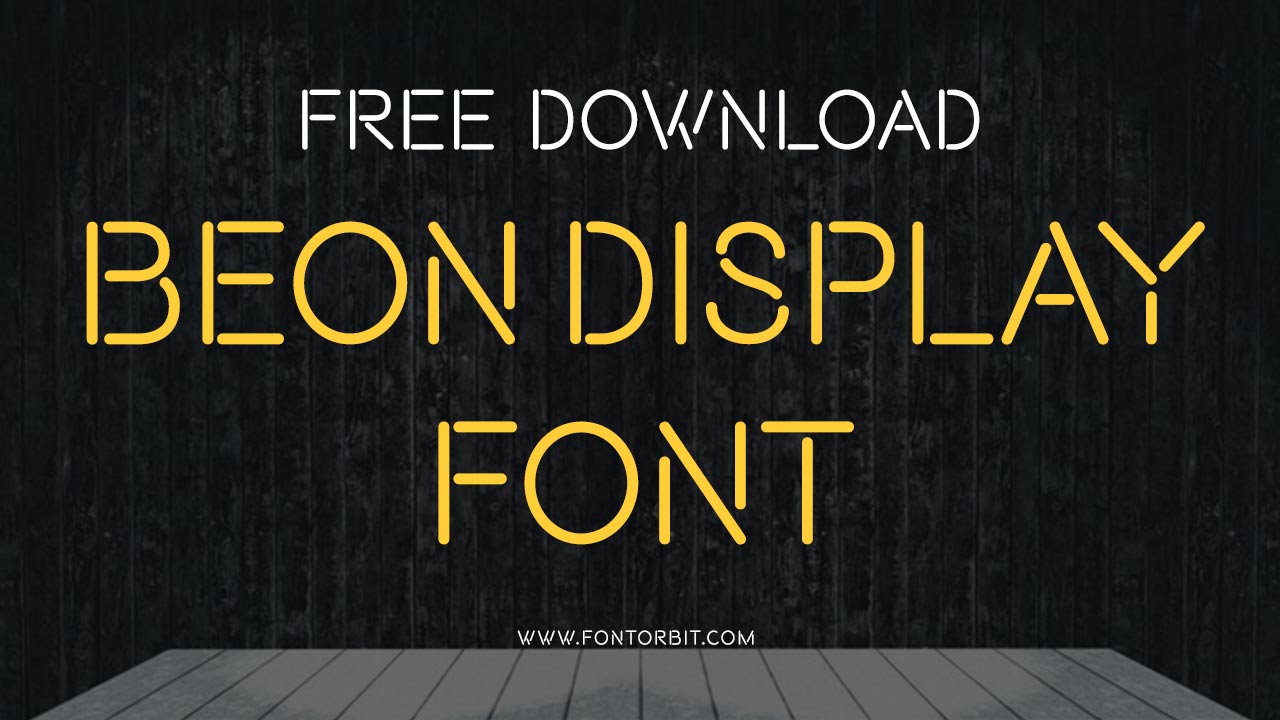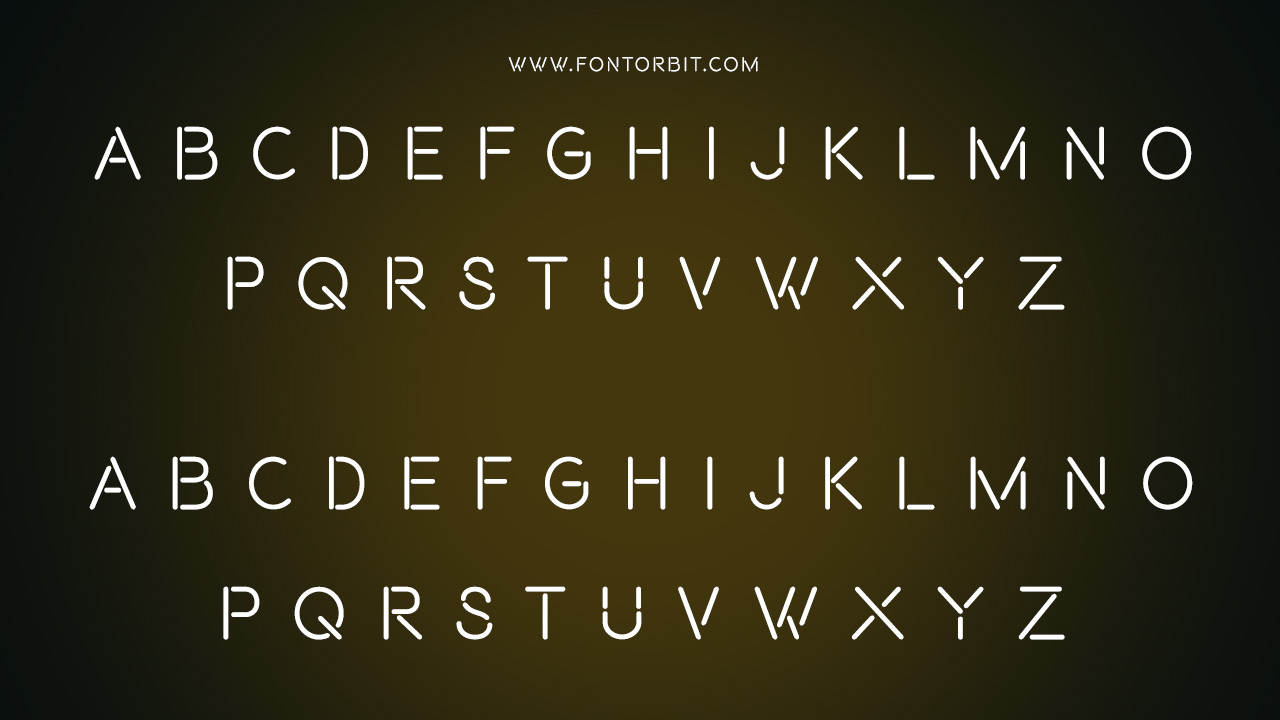
Beon is a unique display font with a futuristic style designed by Bastien Sozoo. Originally published in 2013, it belongs to the display font family. Its sharp and edgy geometric design makes it perfect for technology, science fiction, and modern-themed projects. Beon’s dynamic and angular letterforms offer a bold and eye-catching appeal.
Beon’s font family is known for its highly stylized and contemporary aesthetic. Although it comes in a single style, it can still be versatile in different design contexts.
Beon Regular
Notable Uses Of Beon
Beon is frequently used in tech-based projects, science fiction designs, and futuristic branding campaigns. Its striking, modern look makes it ideal for:
- Technology brands and logos
- Sci-fi movie posters and video game covers
- Futuristic-themed advertising and packaging designs
- Social media graphics, web design, and digital banners
- Urban, street-style fashion branding
Given its bold, display nature, Beon is best suited for large-scale designs like headings, posters, logos, and advertisements. It’s less ideal for body text due to its edgy and distinctive structure. This font can make a striking impact on the following:
- Event posters
- Video game titles and in-game UI
- Music album covers, particularly for electronic or techno genres
- Movie titles and promotional graphics for sci-fi films
- Web headers and online graphics for tech-related businesses
If you’re looking for alternatives that match the futuristic, techy feel of Beon, here are some free font options that can provide a similar vibe:
These fonts share Beon’s bold, geometric, and futuristic style, making them great substitutes for tech-focused designs.
Beon is a bold, geometric display font that excels in futuristic and tech-related designs. Its sharp lines and unique letterforms make it stand out in any digital or print project, especially for titles, logos, and posters. If you’re looking for a modern, edgy font for your next project, Beon is an excellent choice.
2.What Type Of Font Is Beon?
Beon is a display font with a futuristic, geometric style.
3.When Was Beon Released?
Beon was first published in 2013.
4.What Type Of Projects Is Beon Suitable For?
Beon works best in futuristic, tech, or sci-fi-themed designs.
5.Can I Use Beon For The Body Text?
Due to its angular design, Beon is not ideal for body text; it’s better for headings and logos.
6.Does Beon Come In Multiple Styles?
Beon comes in a single regular style.
7.What Fonts Are Similar To Beon?
Similar fonts include Neon Glow, Square Fonts, and Orbitron.
8.Is Beon A Good Font For Branding?
Yes, Beon is a great choice for modern, tech-oriented branding.